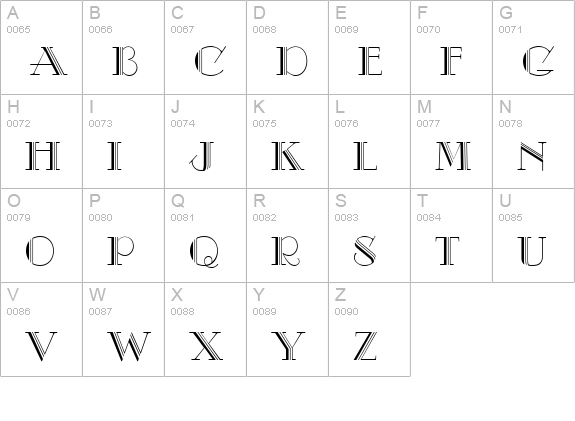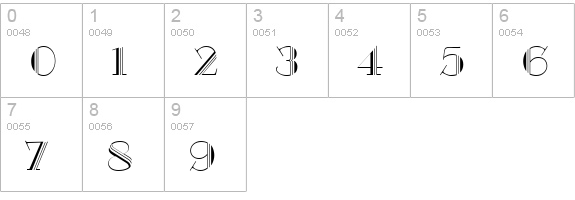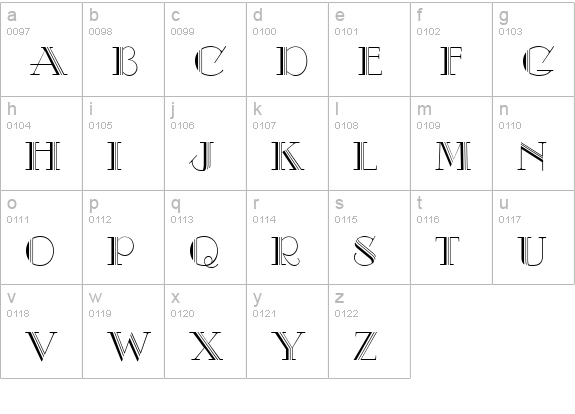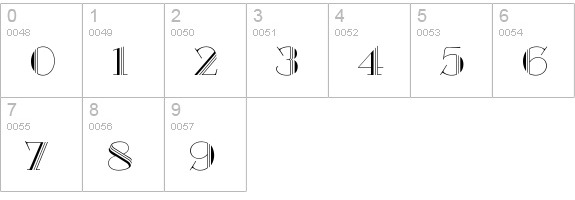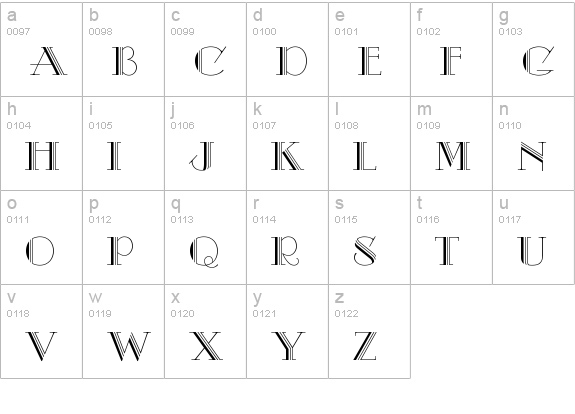
CgChic Font Details
CgChic font is a stylish and modern typeface that exudes sophistication and elegance. Its sleek lines and contemporary design make it perfect for a wide range of projects, from branding to advertising to editorial design. With its clean and legible appearance, CgChic font is versatile and can easily adapt to various design contexts. What sets CgChic font apart is not only its aesthetic appeal, but also the fact that it is available for free download at FontsMarket.com. This means that designers and creatives can access this premium font without any cost, making it a valuable resource for anyone looking to elevate their design projects. Don't miss out on the opportunity to enhance your creations with the sleek and stylish CgChic font, available for free at FontsMarket.com.